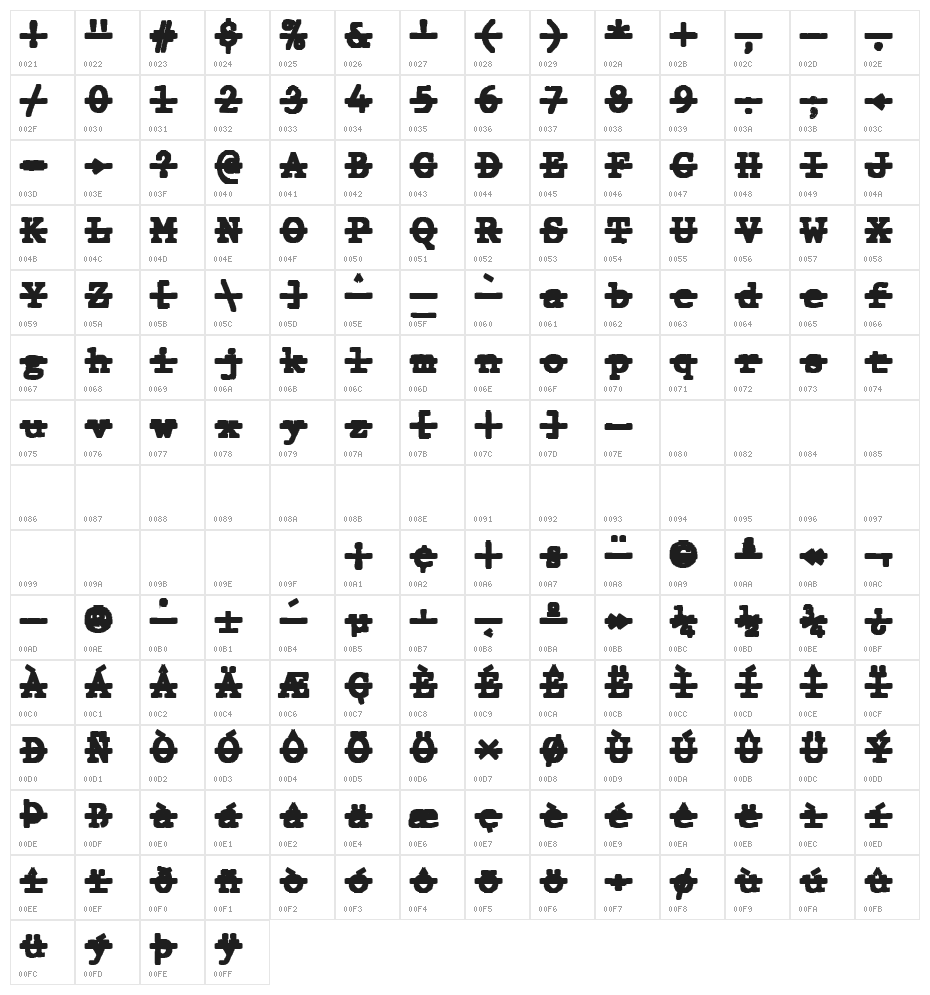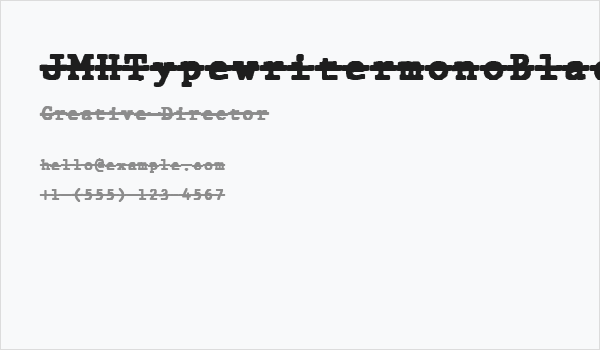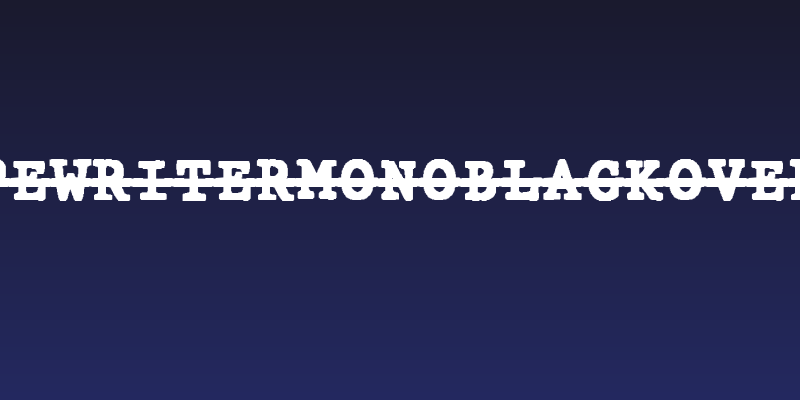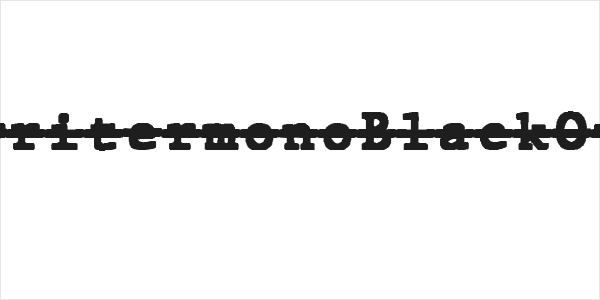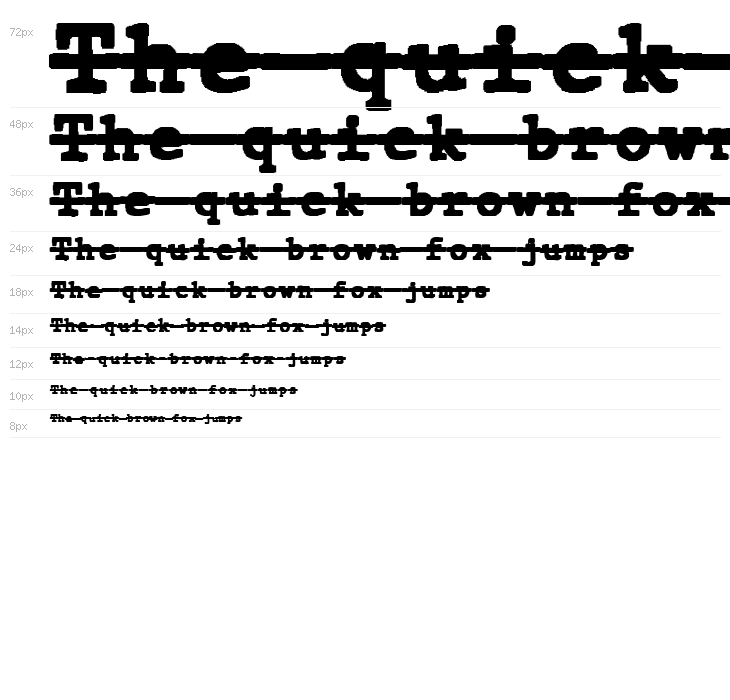
JMHTypewritermonoBlackOver-Regu Font
JMHTypewritermonoBlackOver-Regu Description
This font exudes a vintage typewriter aesthetic, characterized by its monospaced design where each character occupies the same amount of horizontal space. The bold, black strokes give it a strong presence, reminiscent of classic typewriter fonts used in the mid-20th century. The characters are slightly irregular, adding to the authentic, mechanical feel. The uppercase and lowercase letters maintain a consistent style, with rounded edges and a slightly distressed texture that enhances its retro appeal. The numerals and special characters follow the same design principles, ensuring uniformity across all glyphs. This font is ideal for projects that aim to evoke nostalgia or a sense of authenticity, such as retro-themed designs, typewriter art, or historical documents.
| Use Case | Headlines, Logos, Decorative text |
| Proposed Projects | Ideal for retro-themed designs, typewriter art, historical documents, and any project seeking a nostalgic feel. |